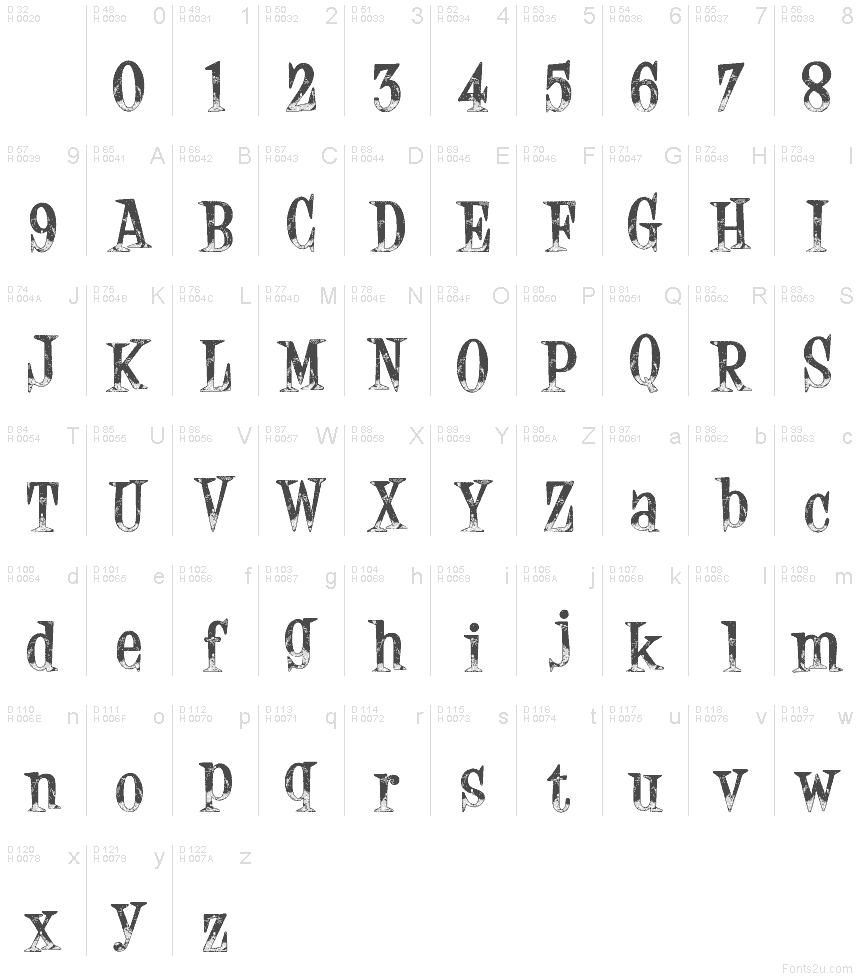
Arachnophobia
Arachnophobia font by Minderklasky is a free eroded display font. Its serif shapes look scraped and dusted with cobweb grit, like old signage pulled from a damp cellar. The texture isn’t random noise—it clusters in the counters and along the strokes, giving headlines a creepy, tactile crawl without losing readability at medium sizes.
Using Arachnophobia, you’ll nail Halloween posters, haunted house flyers, horror movie titles, spooky game logos, escape room branding, and eerie book covers. Run it big so the inky decay shows, and keep tracking a touch loose. Pair this free font with a plain, modern sans to handle details and let the distressed letters set the mood.